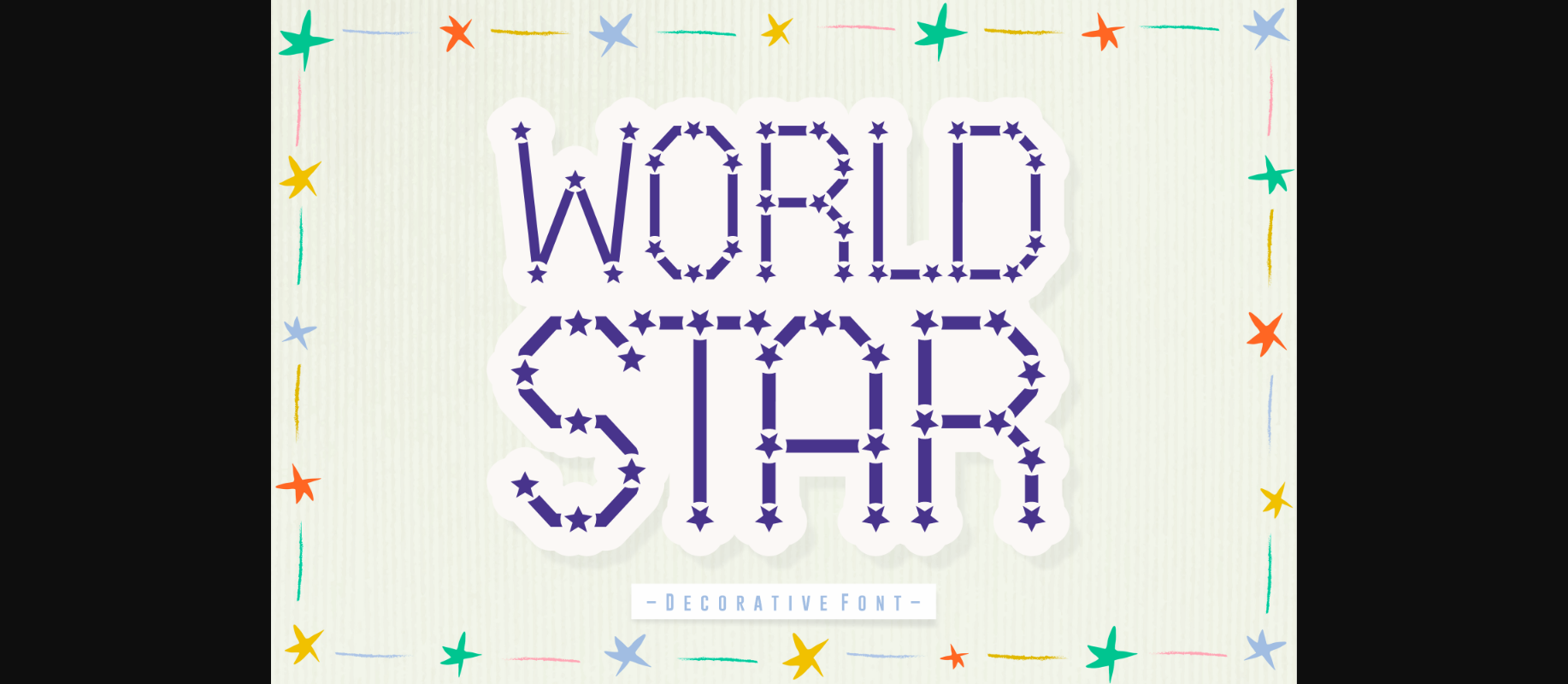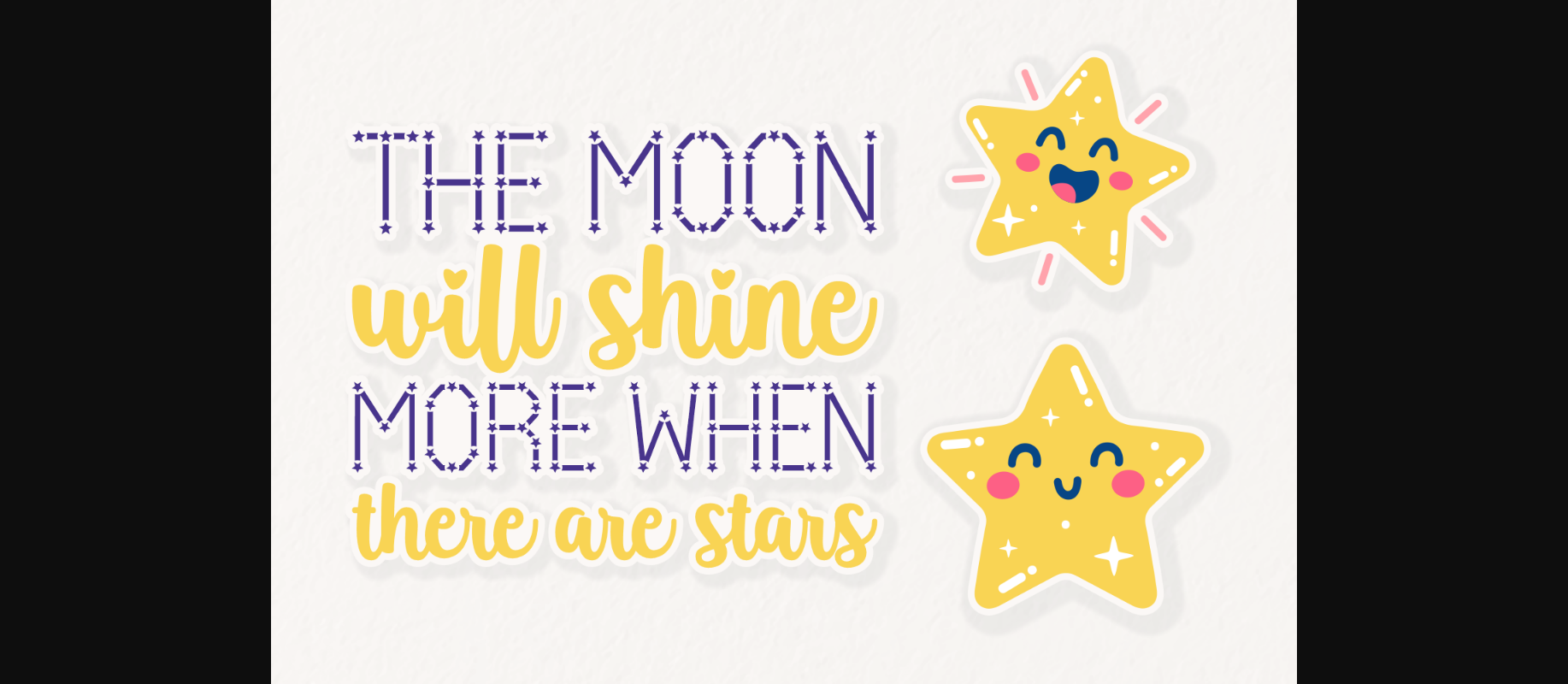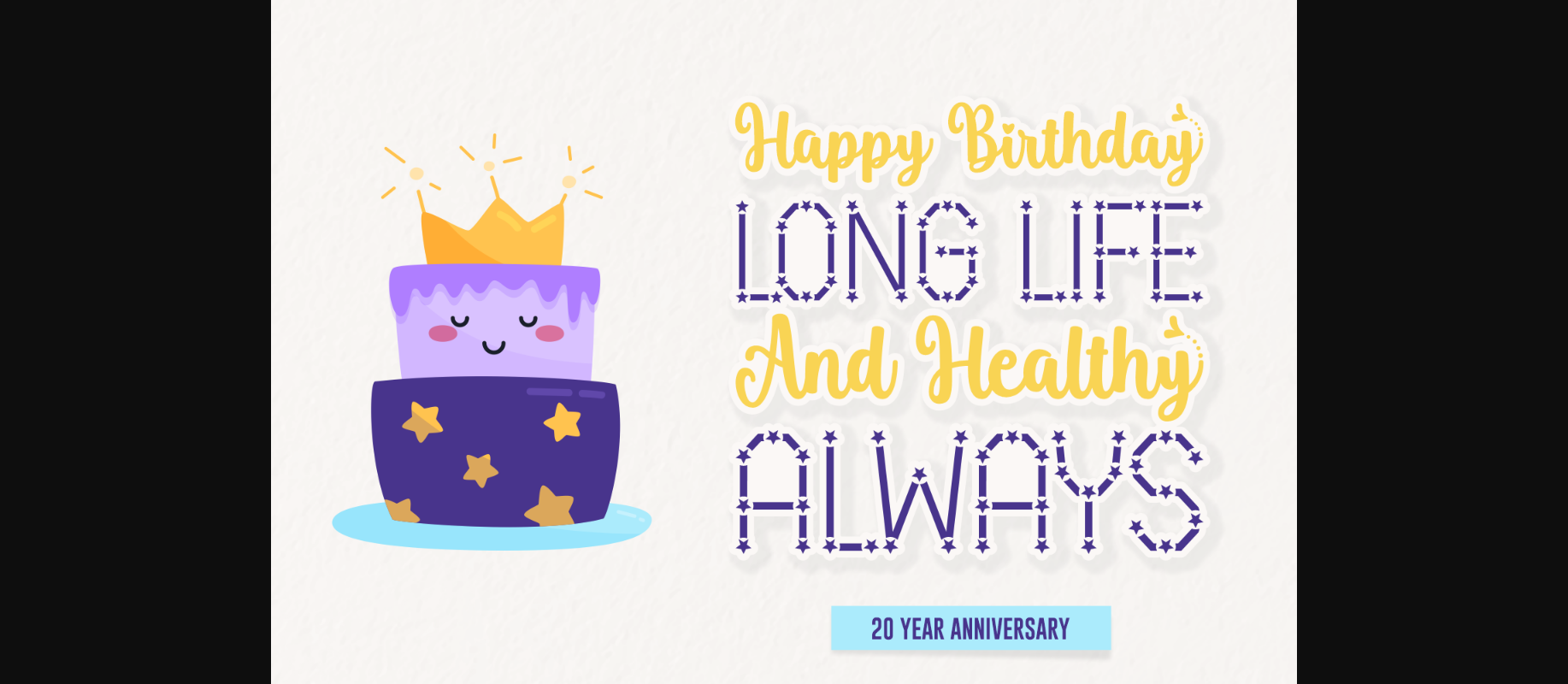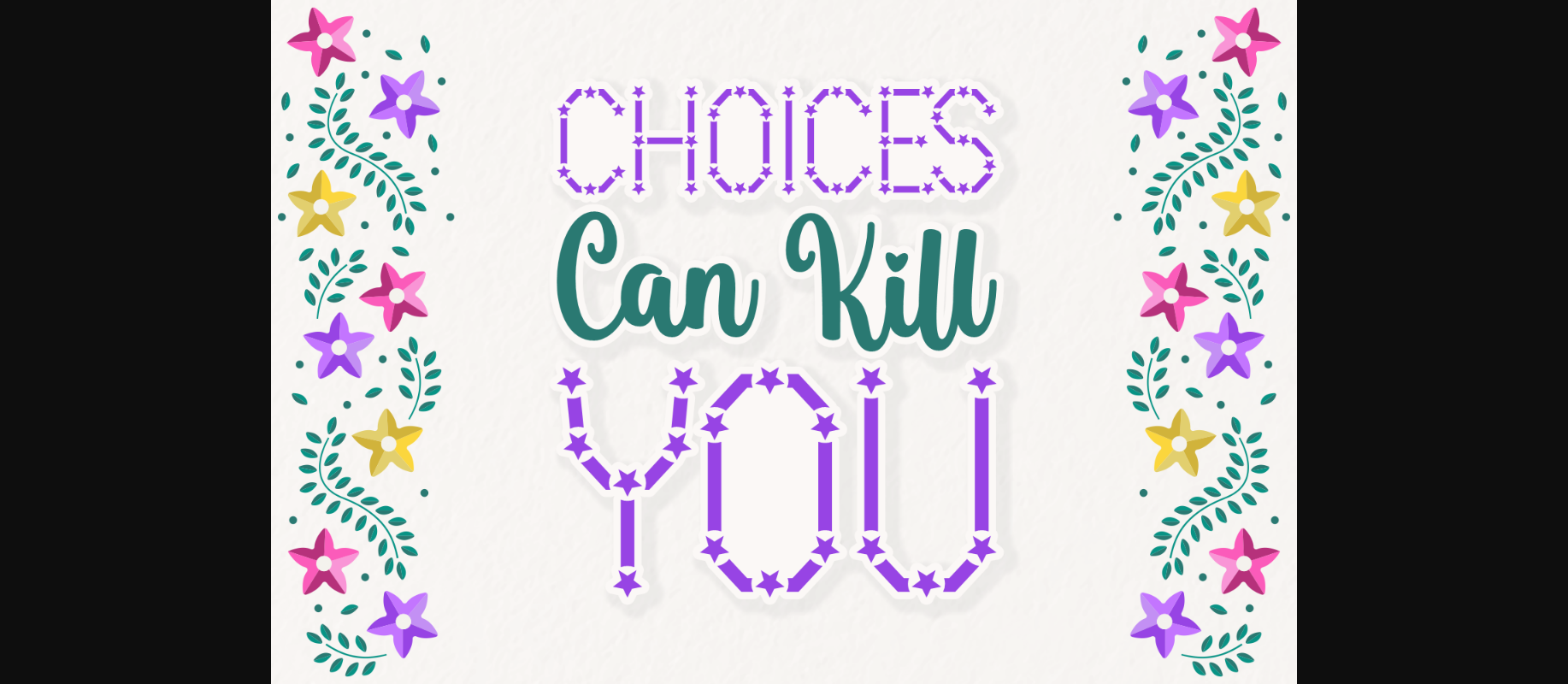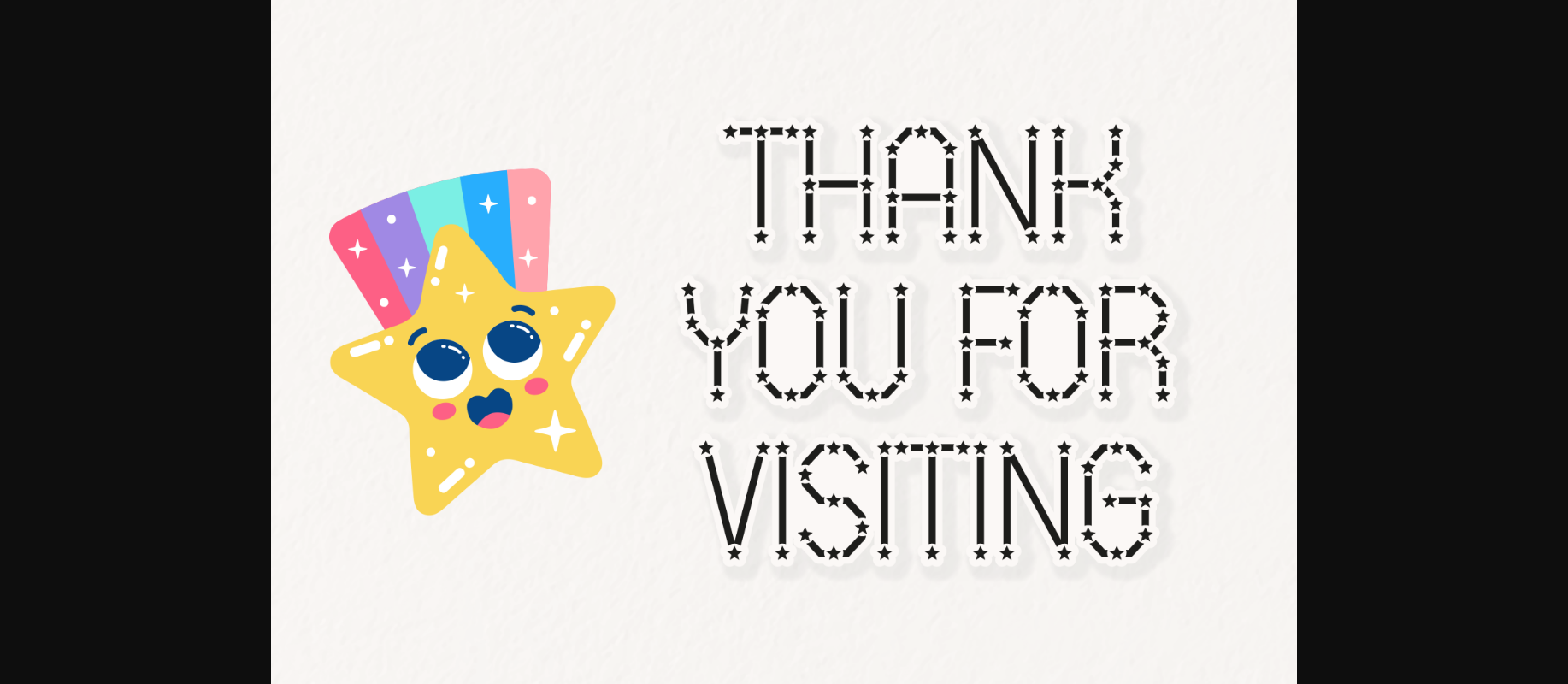
World Star Font
About World Star Font
World Star is a captivating decorative display font that brings a touch of magic to your designs. Each letter is adorned with elegant star elements, adding a celestial charm to your projects. Whether you’re creating posters, invitations, or social media graphics, World Star will make your text shine and stand out like stars in the night sky. Embrace the enchanting allure of this font and let your creativity sparkle!